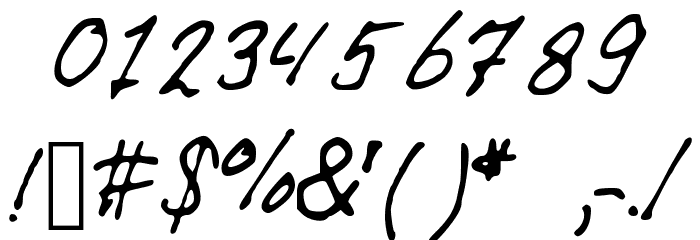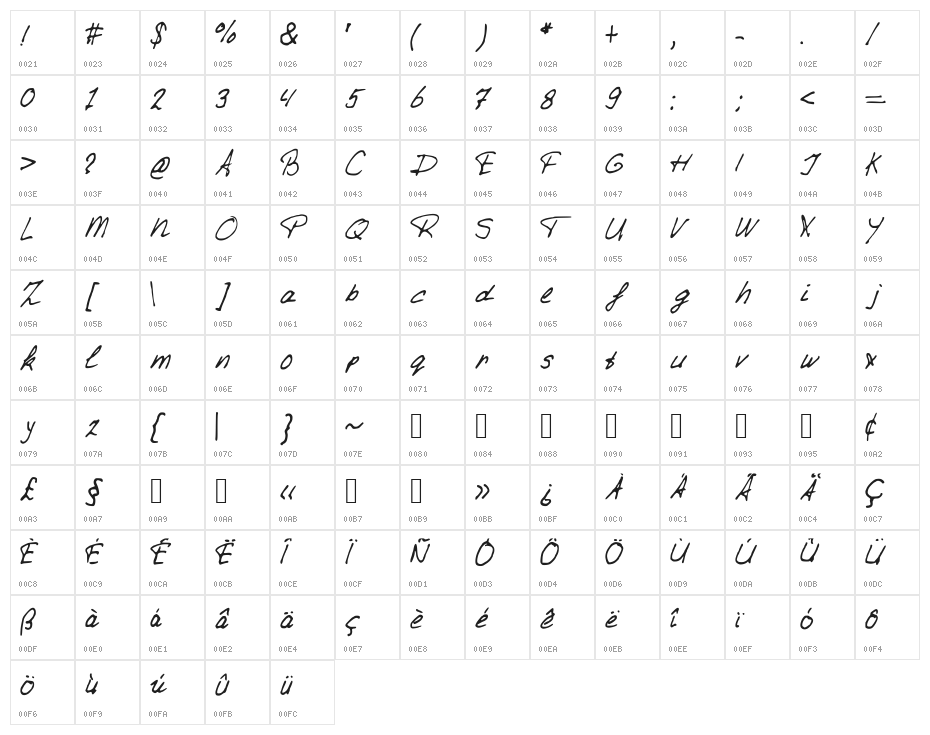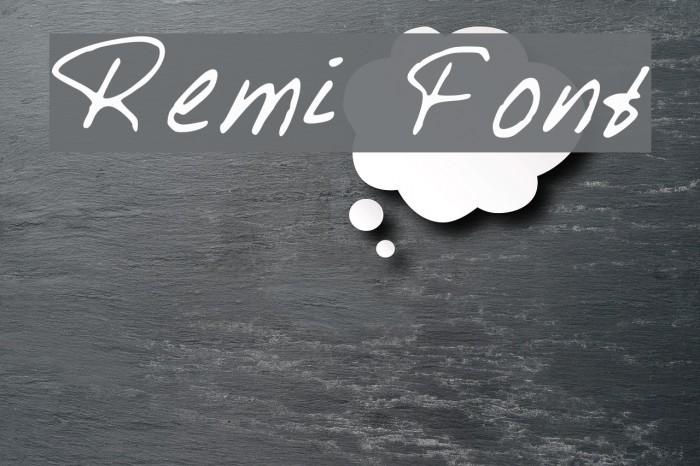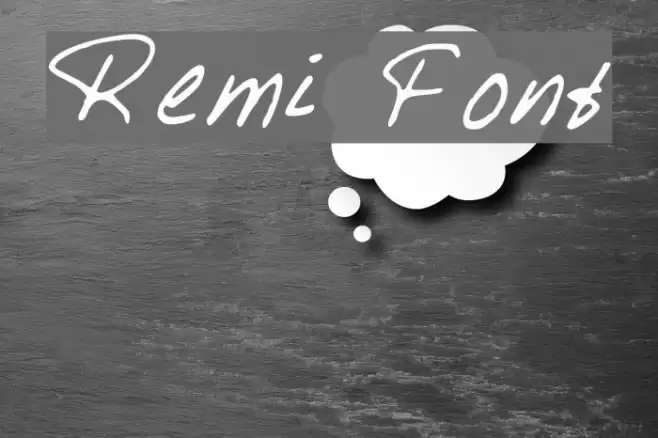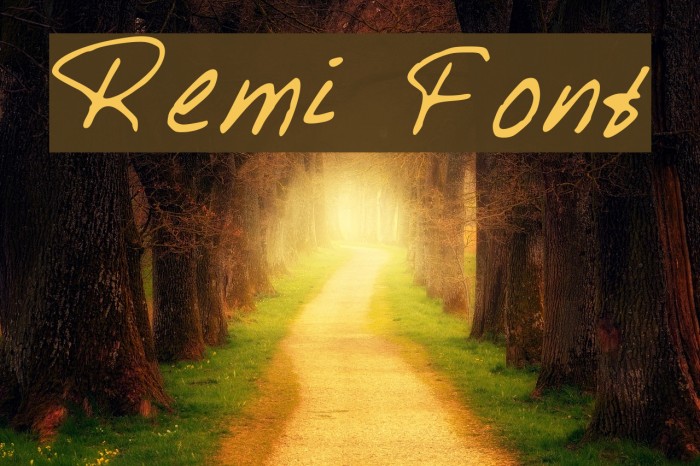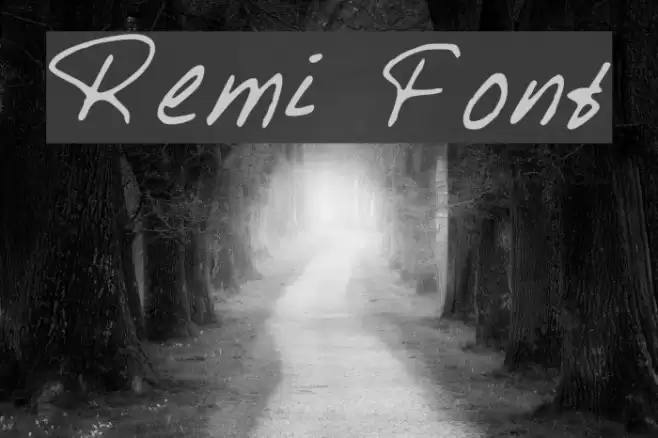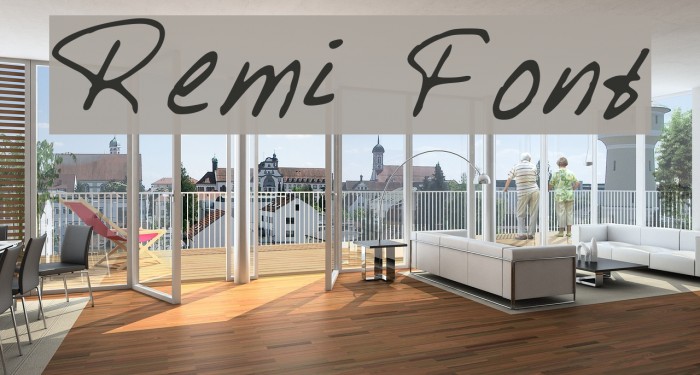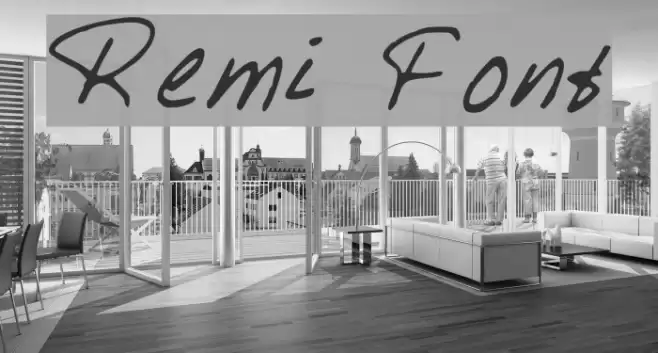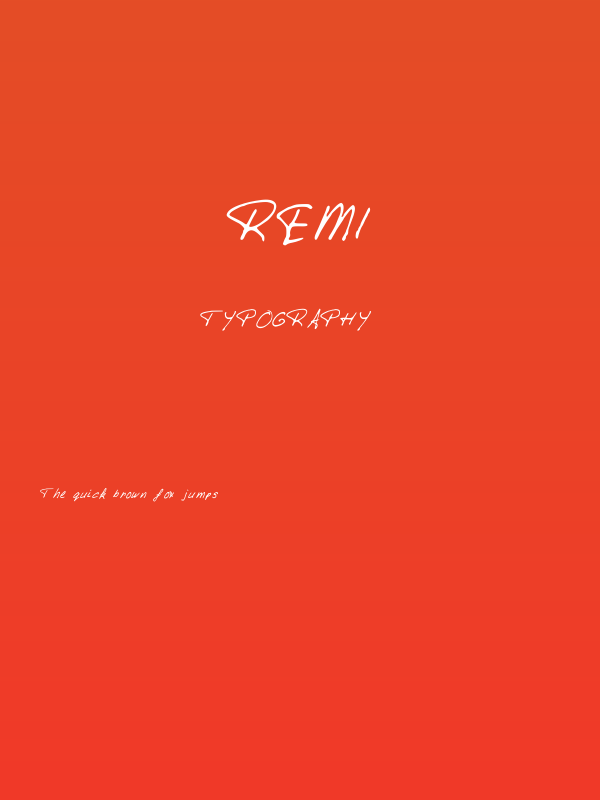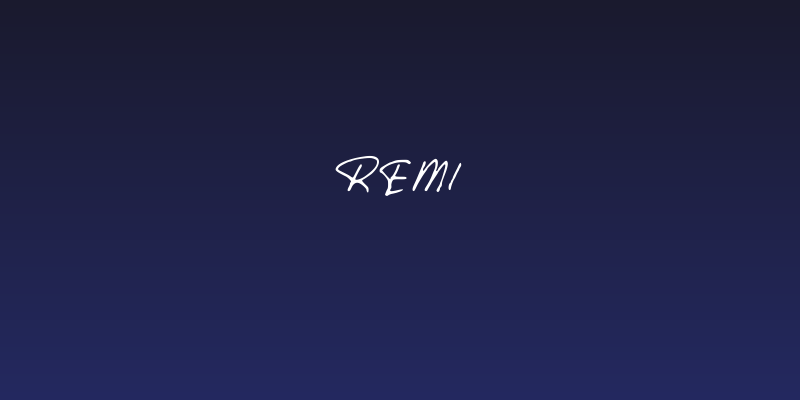
Remi Font
Remi Description
This font exudes a casual, handwritten style with a fluid and dynamic appearance. The characters are slightly slanted, giving it an informal and personal touch. The strokes are smooth and connected, mimicking the natural flow of handwriting. The uppercase letters are bold and prominent, while the lowercase letters maintain a consistent rhythm, enhancing readability. The numerals and special characters are crafted with the same flowing style, ensuring uniformity across all glyphs. This font is perfect for projects that require a personal or artistic flair, such as invitations, greeting cards, or creative branding.
| Use Case | Headlines, Logos, Artistic projects |
| Proposed Projects | Ideal for invitations, greeting cards, artistic branding, and personal notes. |